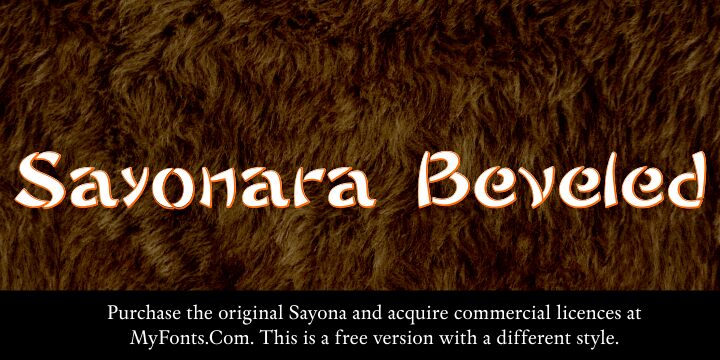
Sayonara Trash by Paulo W is a free graffiti script. Its restless, sharply cut letters swell, narrow, and break along the edges, creating an uneven silhouette with scratched texture and quick, improvised movement.
Skate labels and independent clothing brands can use this abrasive lettering for logos, packaging, music posters, and merchandise tied to underground culture. The recurring nicks and ragged edges let the words become part of a distressed graphic treatment, echoing torn stickers, scuffed paint, and rough photocopied artwork.
Sayonara free version was created by Intellecta Design and Paulo W. It is a non-commercial version with a different set of styles from the original font.